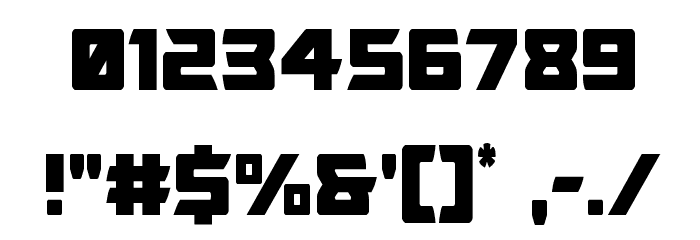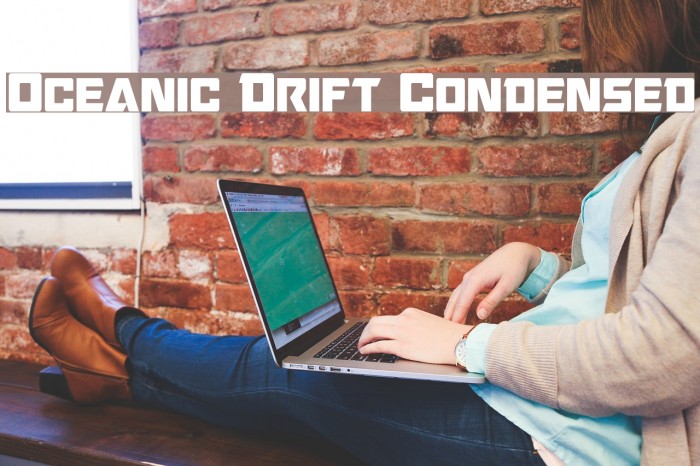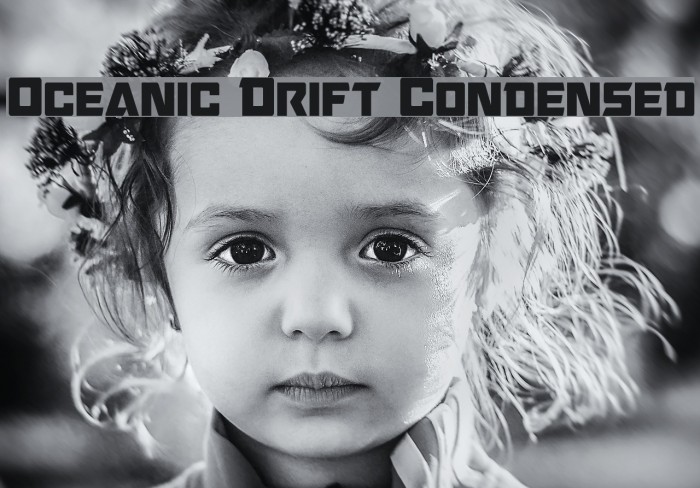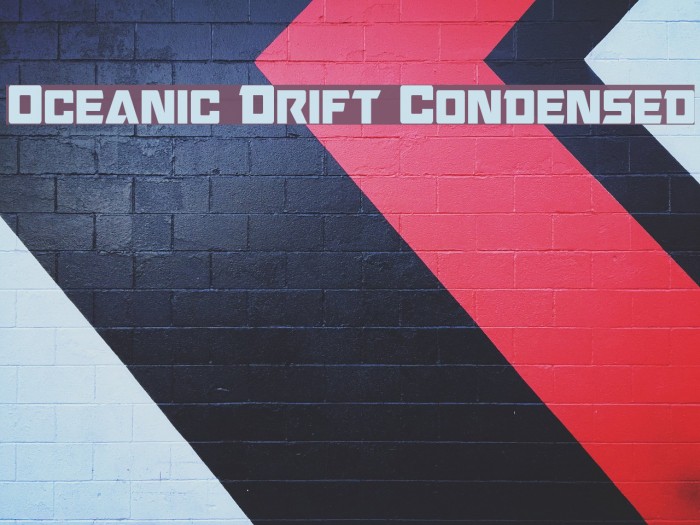
Oceanic Drift Condensed Font
This font features a bold and striking design with a condensed width, making it ideal for impactful headlines and attention-grabbing displays. The characters are uniformly thick, providing a strong presence on the page. The geometric shapes and sharp angles give it a modern and futuristic feel, while the condensed nature allows for efficient use of space. The uppercase letters are particularly prominent, with a consistent height that ensures readability even at smaller sizes. The numerals and special characters maintain the same boldness, ensuring a cohesive look across all text elements.
A bold, condensed font with a modern, geometric style.
- Proposed Projects: Ideal for posters, branding, and digital media where a strong visual impact is needed.